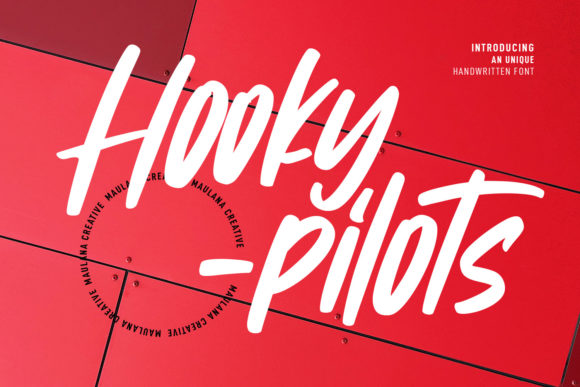
Unleash the Irresistible Charm of Your Designs with Hookypilots Font: A Bold Canvas for Your Creative Vision
Welcome to the realm of Hookypilots Font, a captivating script typeface designed to inject personality and vibrancy into your creative projects. With its bold strokes, playful characters, and boundless versatility, Hookypilots Font stands as the perfect companion for crafting designs that demand attention.
At the helm of this font's creation is Maulana Creative, a visionary artist with an unwavering commitment to excellence. Inspired by the dynamic energy of bold hashtags, Hookypilots Font was born – a font that not only adorns your designs but breathes life into them.
Prepare to be mesmerized as this slanted handwritten font weaves its magic into your projects. Its relaxed and cool demeanor brings a refreshing touch to logos, branding, posters, social media posts, and countless other creations. The dynamic dance of thick and thin lines adds depth and intrigue, captivating your audience with every stroke.
But Hookypilots Font's allure extends far beyond its aesthetic charm. It is a font crafted with purpose, meticulously engineered to empower your designs with maximum impact. Its extensive character set boasts uppercase and lowercase letters, numerals, and a diverse range of symbols, ensuring seamless integration into any language or project.
Furthermore, Hookypilots Font's ligatures and alternates open up a world of creative possibilities. These carefully designed elements allow you to effortlessly add a touch of flair and personalization to your designs, elevating them from ordinary to extraordinary.
Unleash the limitless potential of Hookypilots Font and transform your creations into captivating masterpieces. Let your imagination soar as you explore the endless possibilities it offers, crafting designs that resonate with your audience and leave an indelible mark on their minds.
With Hookypilots Font as your creative ally, mediocrity becomes a distant memory. Embrace the power of bold expression and embark on a journey of artistic exploration like never before.